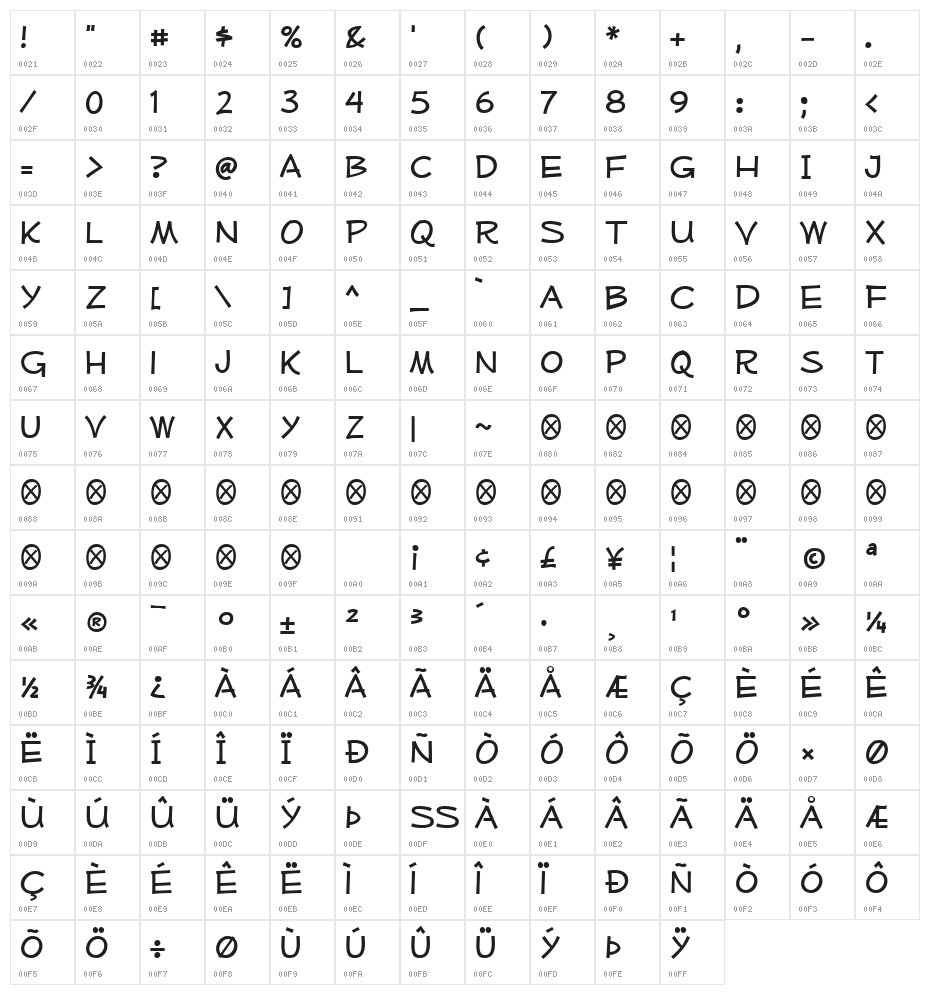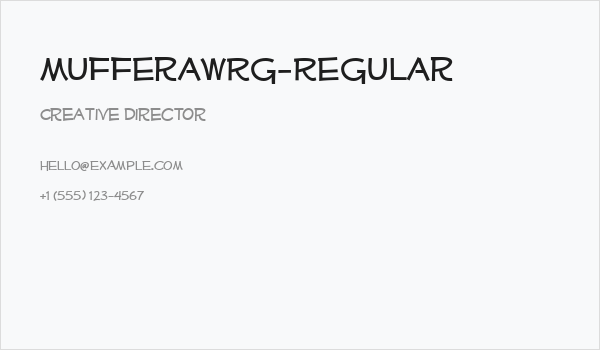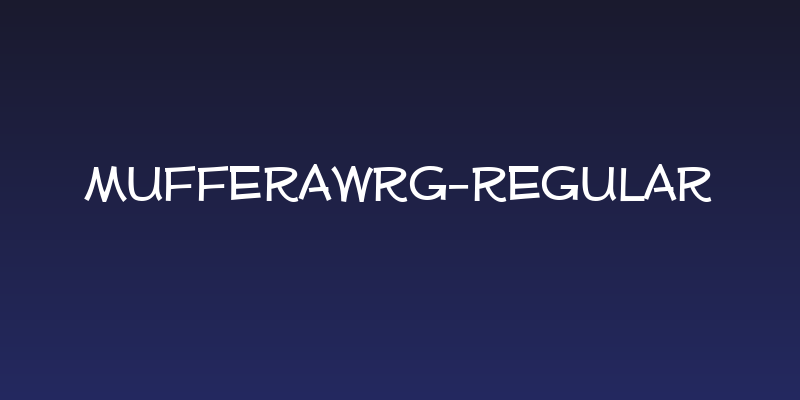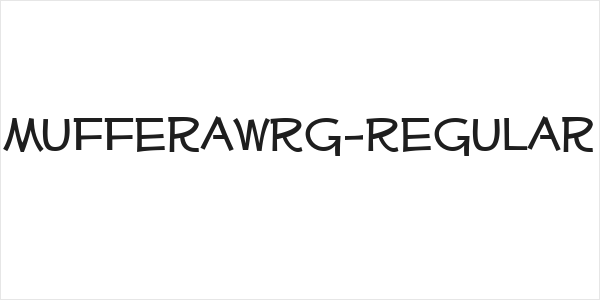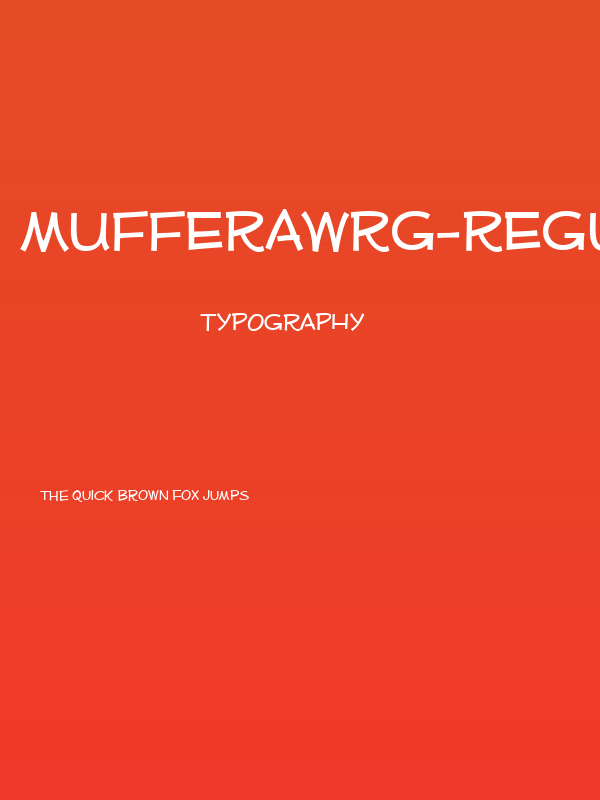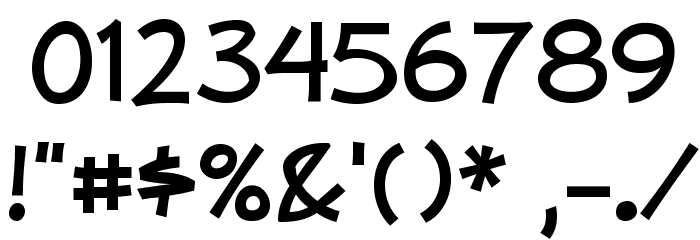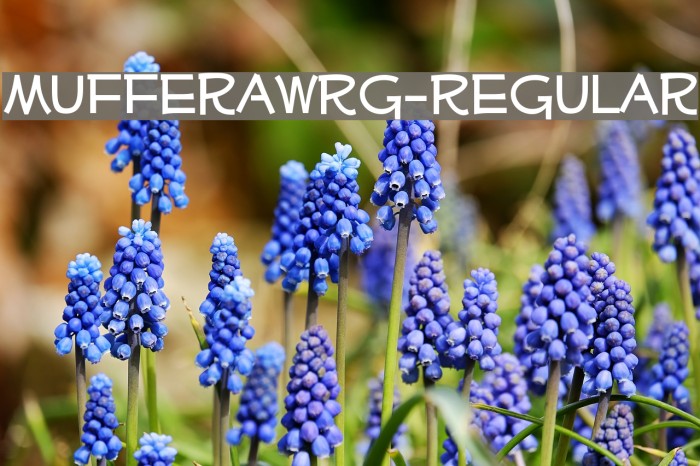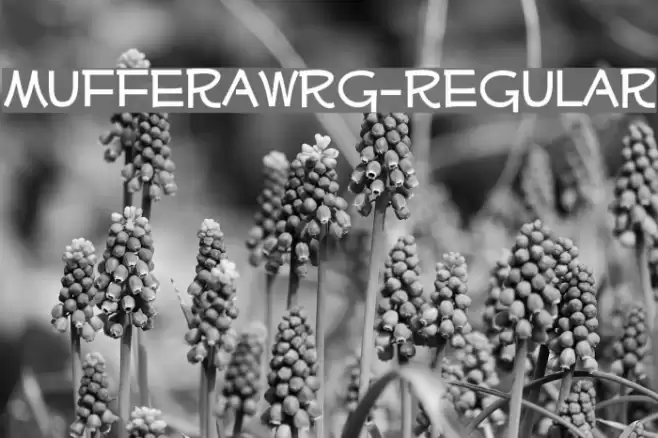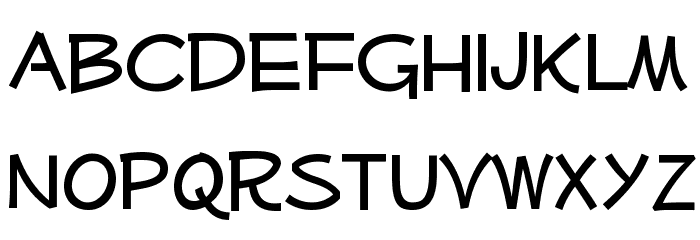
MufferawRg-Regular Font
MufferawRg-Regular Description
This font features a bold and playful design with a handwritten style that exudes a sense of fun and creativity. The letters are slightly slanted, adding a dynamic and energetic feel. The strokes are thick and consistent, providing a strong visual impact. The characters have a unique, quirky appearance with some exaggerated curves and angles, making it ideal for projects that require a touch of whimsy. The numbers and special characters maintain the same playful aesthetic, ensuring a cohesive look across all text elements.
Fonts by www.typodermicfonts.com - Ray Larabie
| Overall Style | Playful |
| Proposed Projects | Ideal for children's books, playful branding, event invitations, and creative posters. |